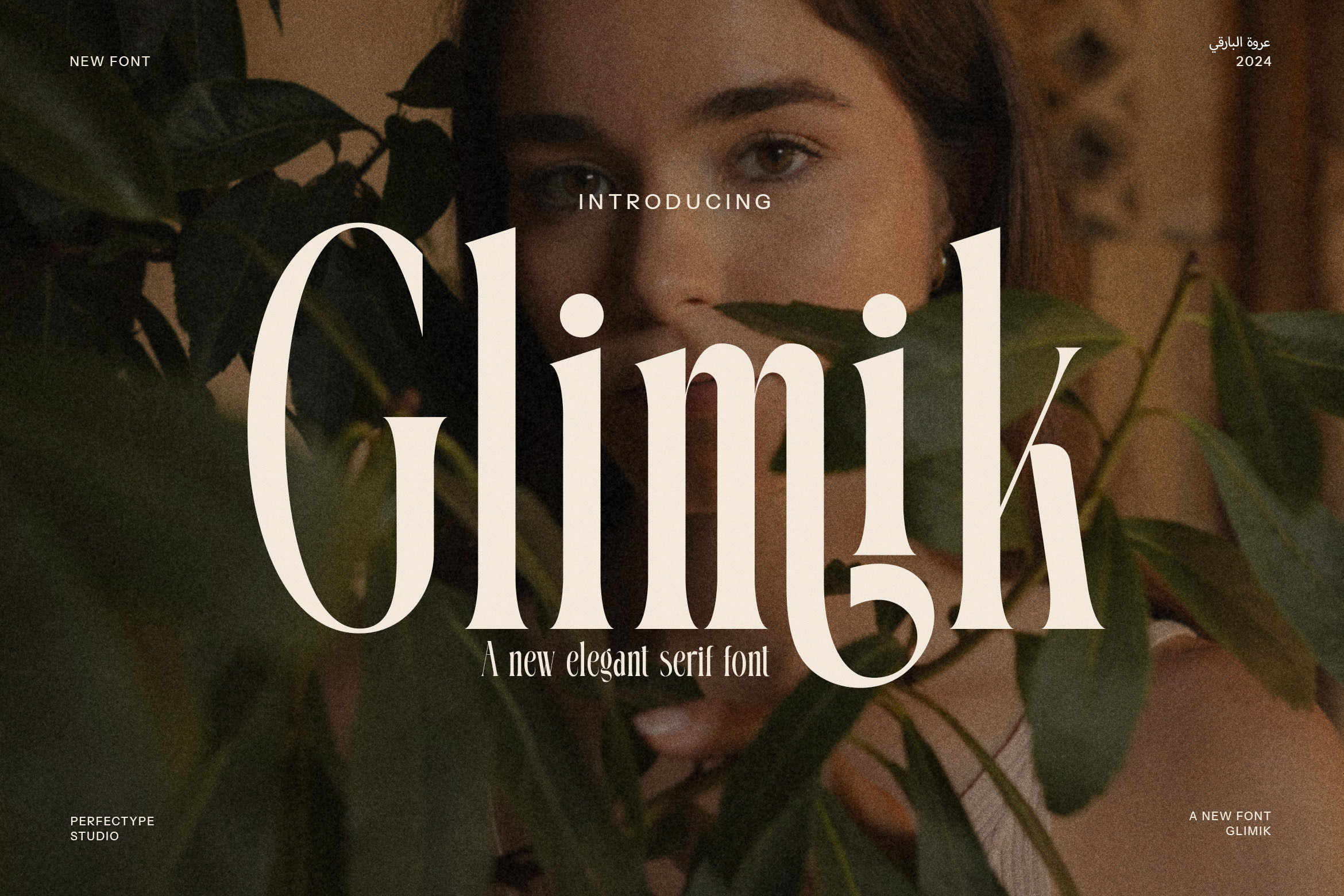
Glimik Elegant Serif Font
Glimik Ligature Serif Font is a modern and refined typeface that brings a touch of sophistication to any design. With its unique ligature and alternate features, this font offers a striking combination of contemporary style and classic serif elements. The distinctive ligatures seamlessly merge multiple letters into beautiful, fluid shapes, providing an elegant and artistic twist to traditional serif fonts.
Ideal for high-end branding, logos, and creative projects, Glimik Ligature Serif Font is a versatile choice for any design that seeks to stand out with class. Its bold, yet refined appearance makes it perfect for luxury brands, boutique identities, and premium products. Whether used for websites, magazines, product packaging, or advertisements, Glimik enhances the visual appeal and professionalism of any layout.
The modern design of Glimik, coupled with its unique letterforms, makes it particularly well-suited for creative industries, food branding, and fashion. Its ligatures and alternates give your typography a distinct, memorable character, elevating your designs and making them instantly recognizable. Glimik’s balance of elegance and modernity makes it a perfect fit for brands looking to convey both innovation and timeless appeal.
From editorial layouts to digital platforms, Glimik Ligature Serif Font delivers style, versatility, and a memorable visual identity. It’s the ideal choice for designers who want to infuse their work with sophistication, uniqueness, and a polished aesthetic.